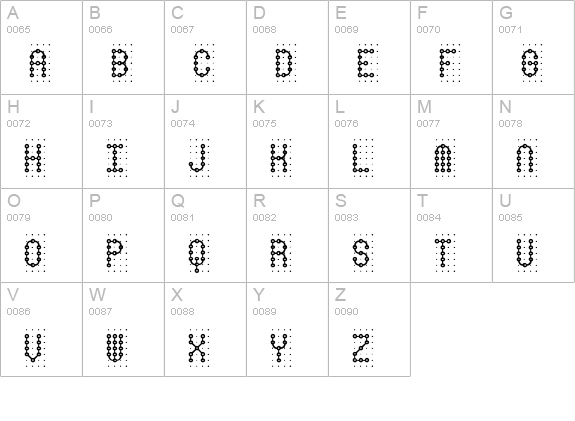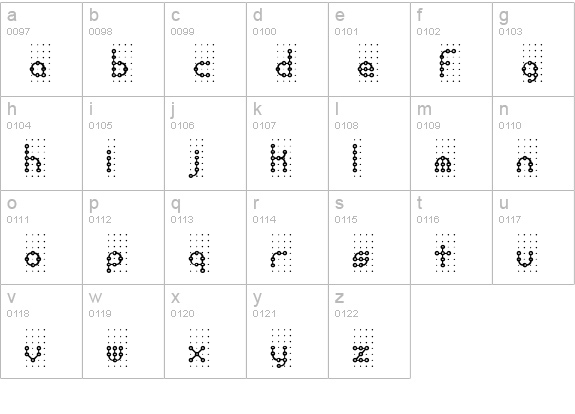
Pindown Plain BRK Font Details
Pindown Plain BRK font is a versatile and stylish typeface that exudes a sense of modernity and sophistication. With its clean lines and bold letterforms, this font is perfect for a variety of design projects, from branding and logos to headlines and posters. Pindown Plain BRK font is characterized by its unique combination of simplicity and elegance. Each letter is carefully crafted to ensure legibility and readability, making it a great choice for both print and digital applications. Whether you're designing a magazine spread or creating a website, this font will add a touch of professionalism and flair to your work. One of the best things about Pindown Plain BRK font is that it is free to download. You can easily access this font at FontsMarket.com, a trusted source for high-quality fonts. By offering this font for free, the creators of Pindown Plain BRK font have made it accessible to designers and creatives of all levels, regardless of their budget. So why wait? Download Pindown Plain BRK font today and elevate your designs to the next level. With its modern and stylish aesthetic, this font is sure to make a lasting impression. Don't miss out on this opportunity to enhance your projects with a high-quality and freely available typeface.